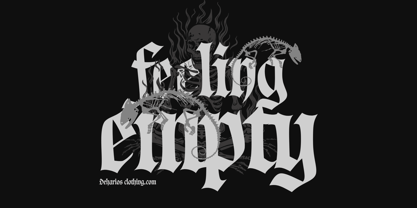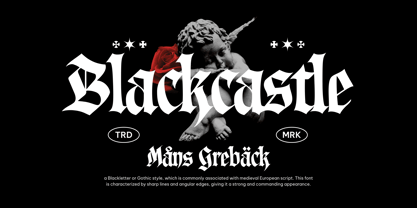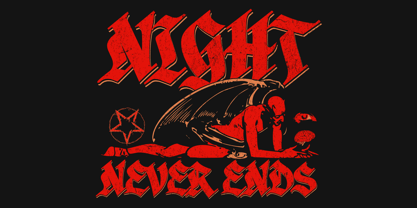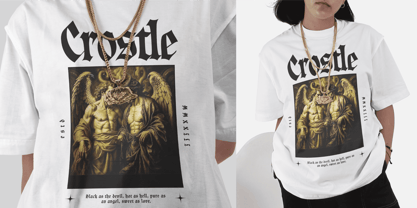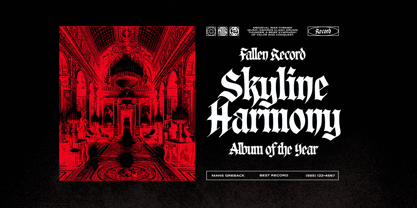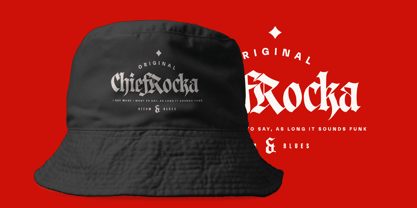
Blackcastle
by Mans Greback
The Blackcastle Font Family was designed by Måns Grebäck and published by Mans Greback. Blackcastle contains 3 styles and family package options. More about this family
Blackcastle is a bold and authoritative blackletter typeface, inspired by medieval calligraphy and Gothic traditions. Its sharp edges and intricate detailing evoke the atmosphere of ancient kingdoms and noble insignia, making it an ideal choice for projects that require a strong and historic look.
The letters are crafted with sharp curves, embodying the spirit of medieval manuscripts and historical design. The heavy, gothic lines give the font a distinct presence. Whether used for posters, heraldry, or regal logos, Blackcastle brings a sense of grandeur and weight.
The font is built with advanced OpenType functionality and guaranteed top-notch quality, containing stylistic and contextual alternates, ligatures, and more automatic and manual features; all to give you full control and customizability.
It has extensive lingual support, covering all Latin-based languages, from North Europa to South Africa, from America to South-East Asia. It contains all characters and symbols you'll ever need, including all punctuation and numbers.
Designed by Mans Greback, Blackcastle merges the sharp aesthetic of medieval blackletter with modern precision, making it versatile for both traditional and contemporary designs.